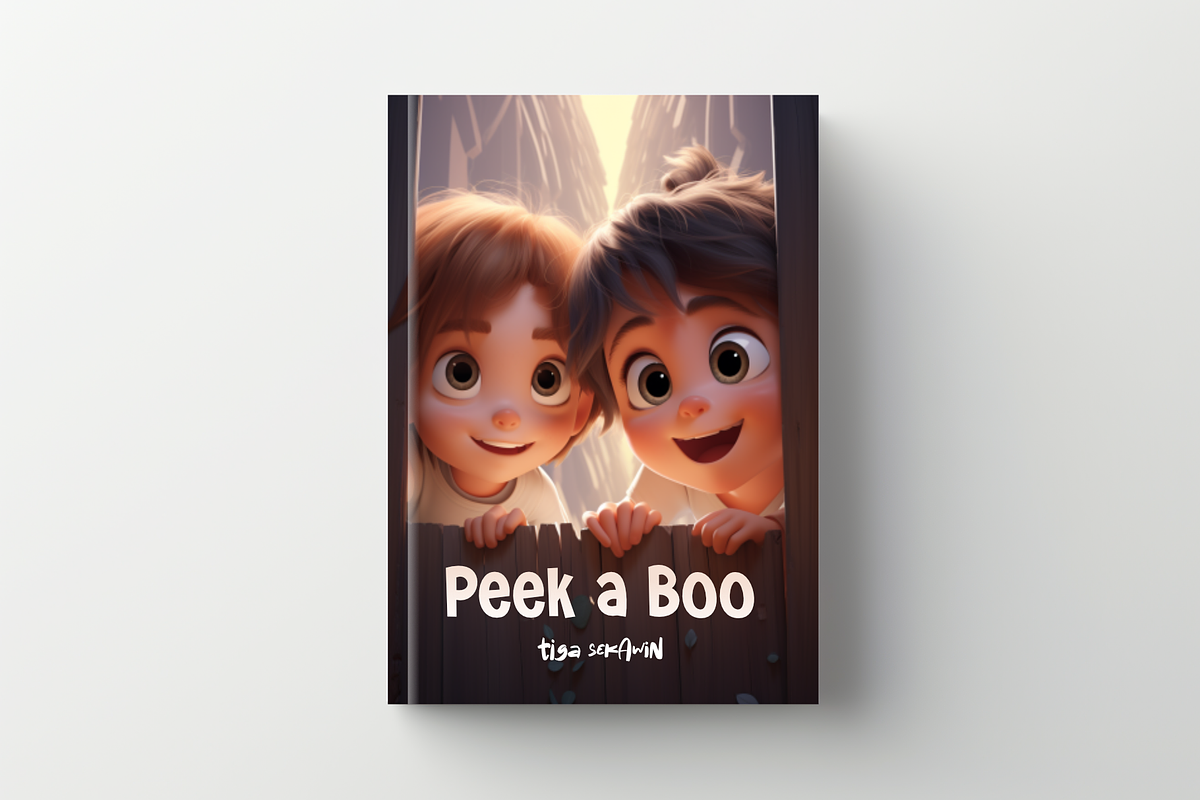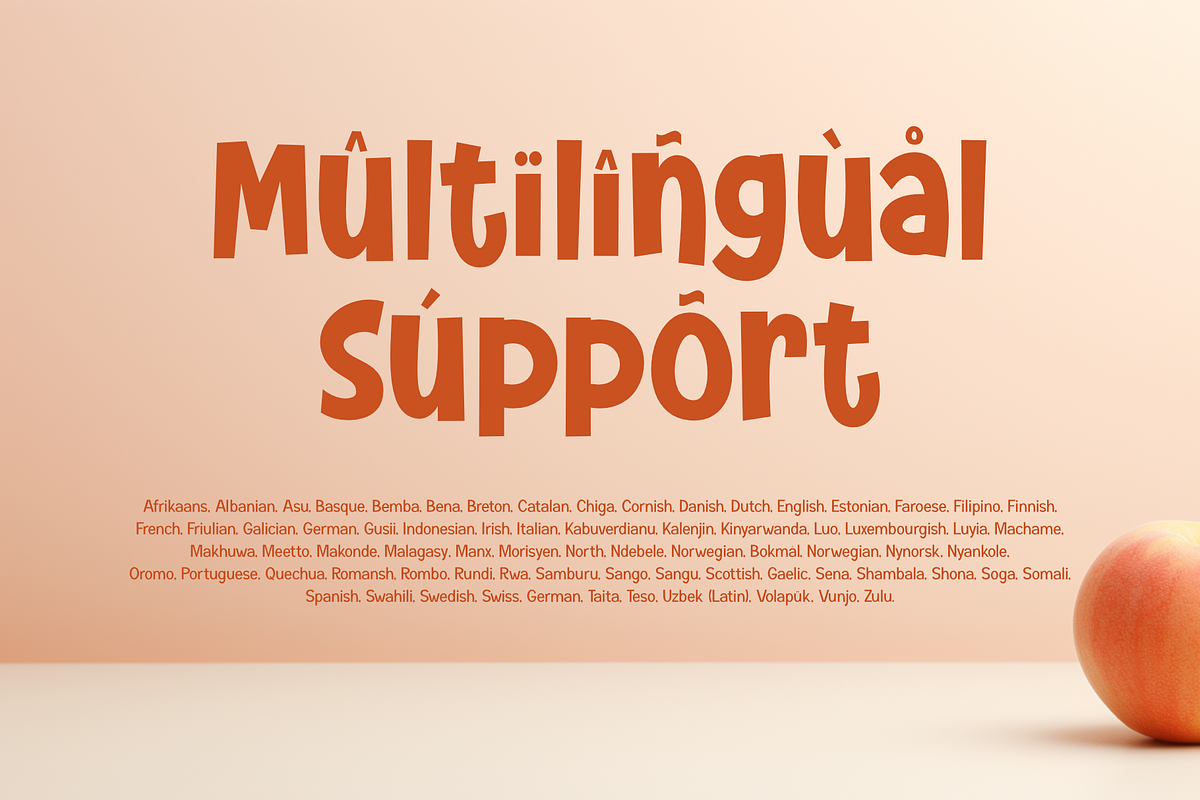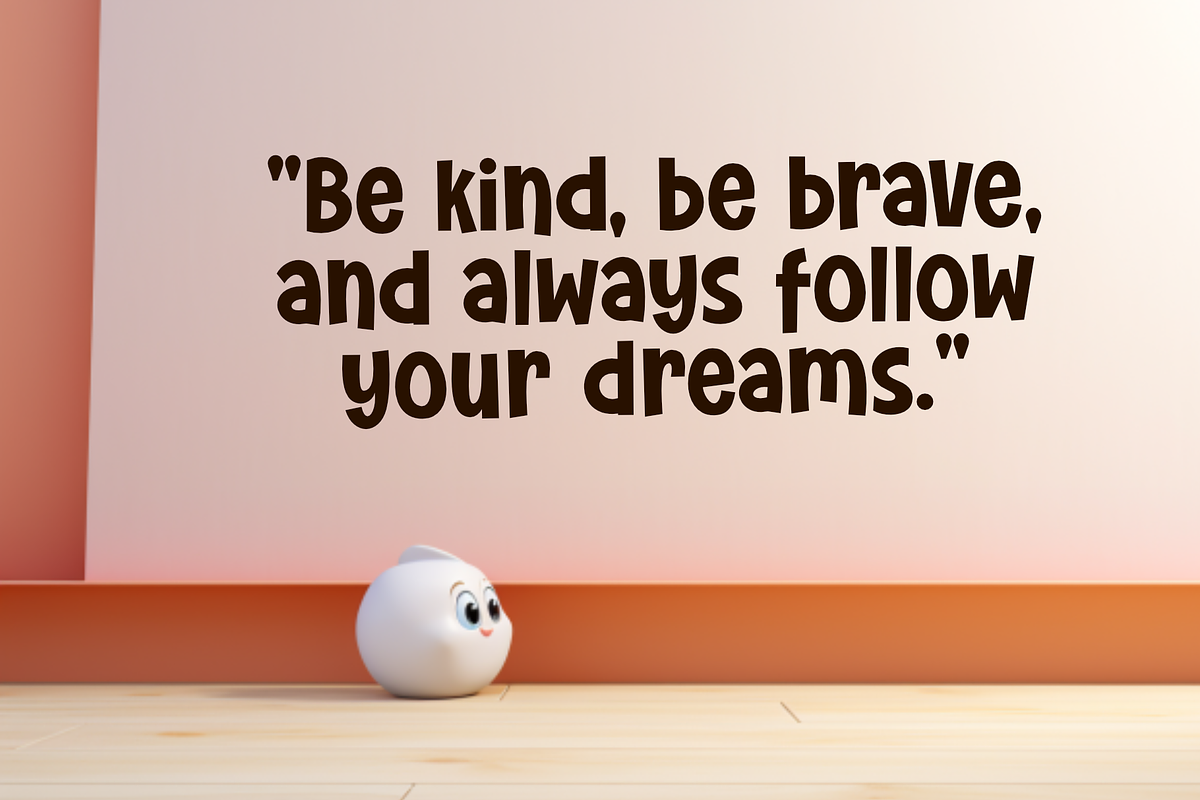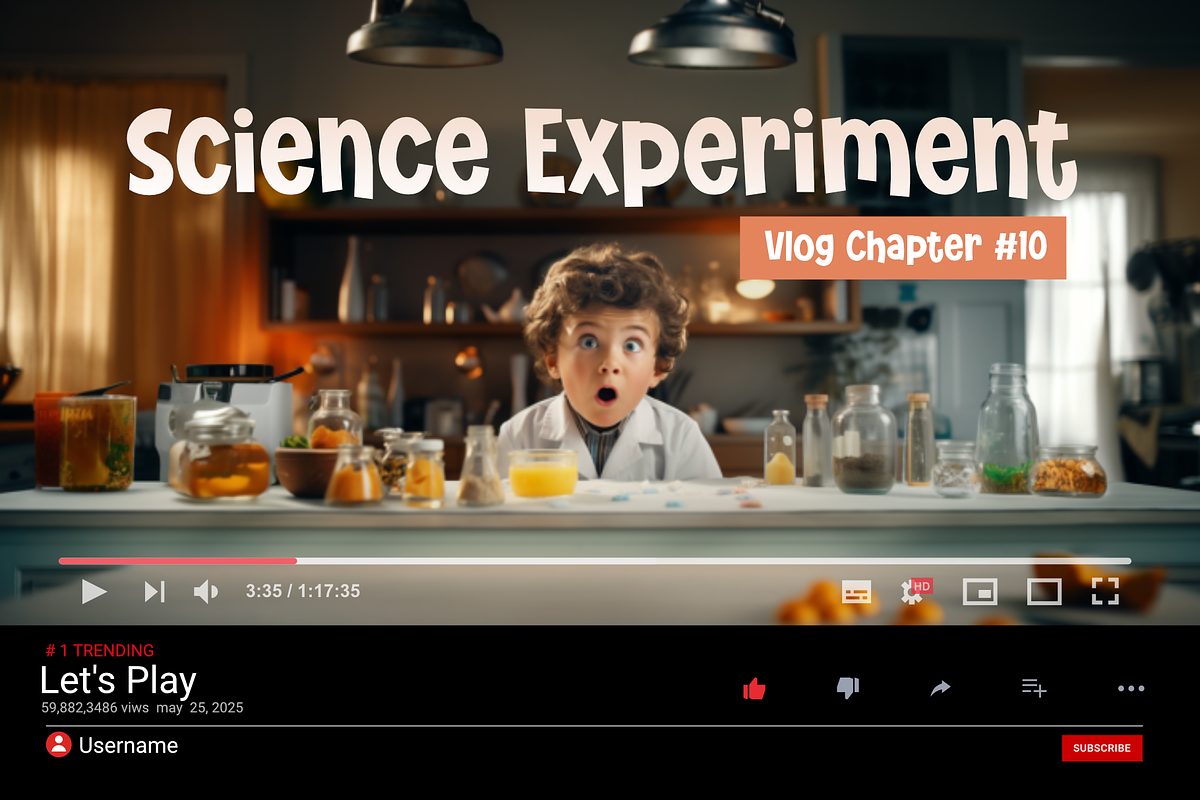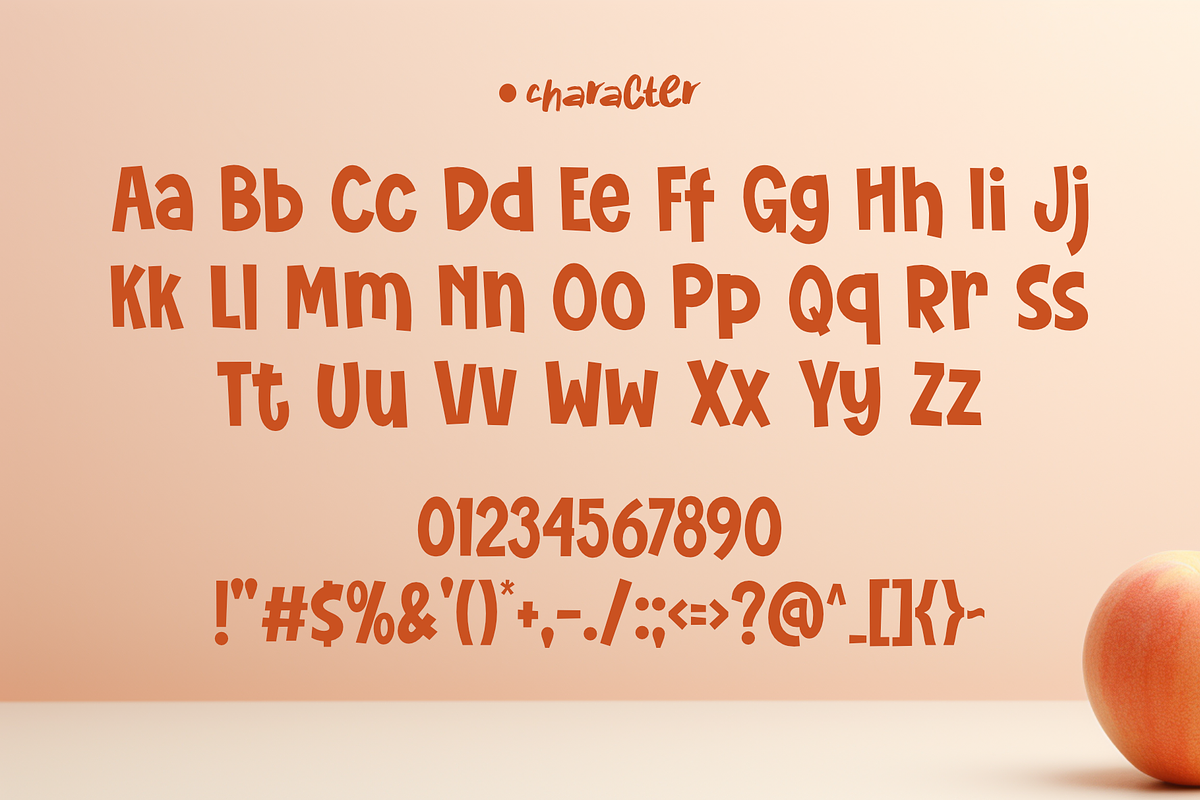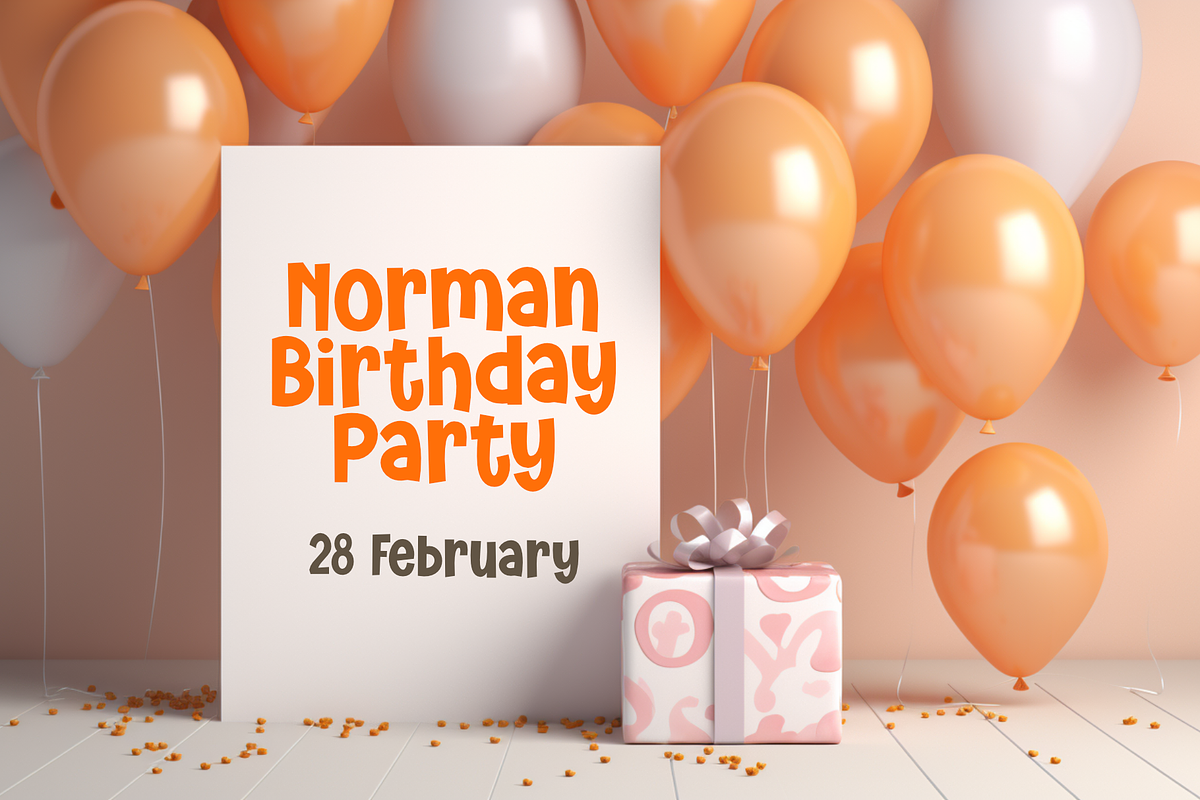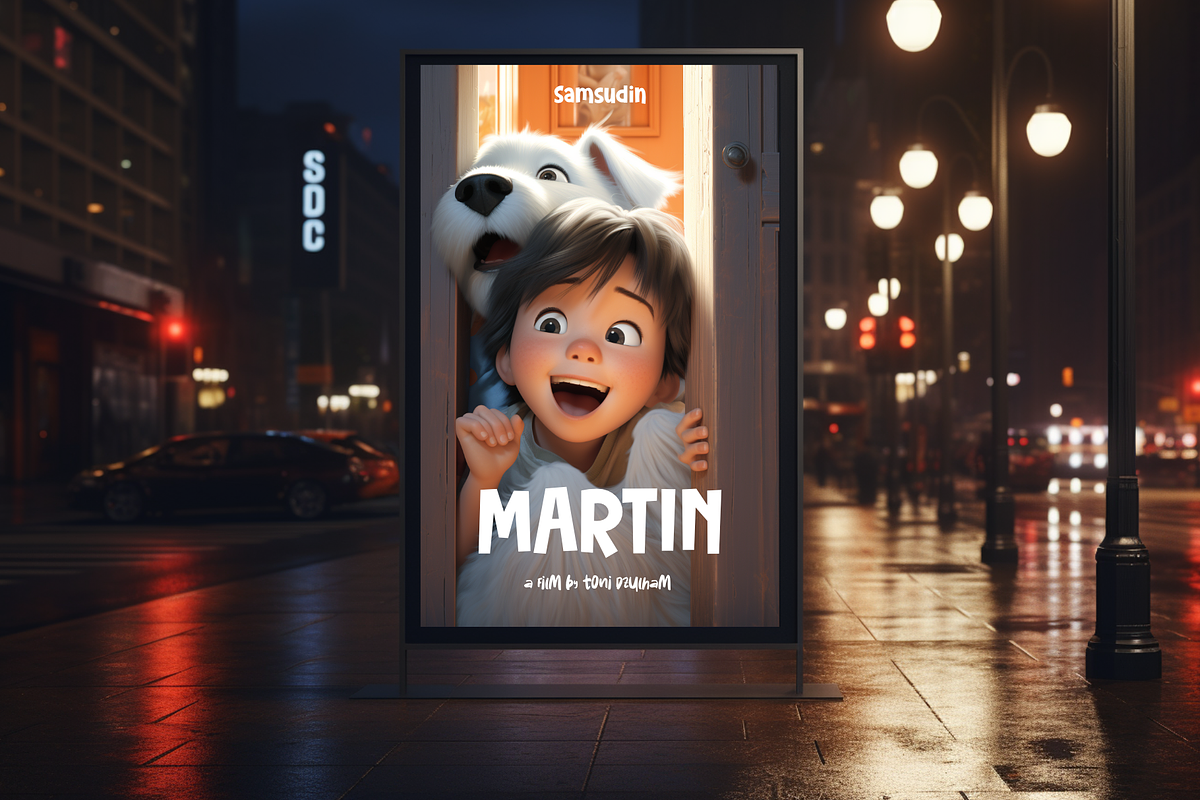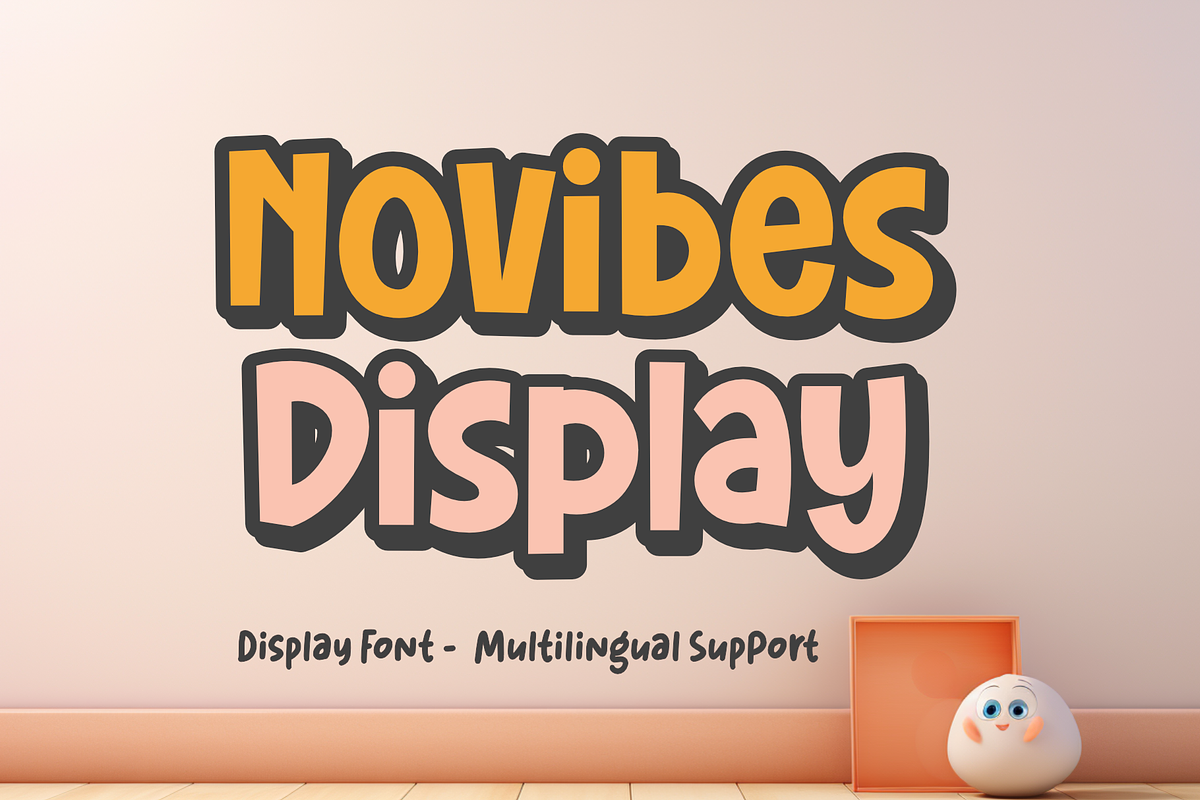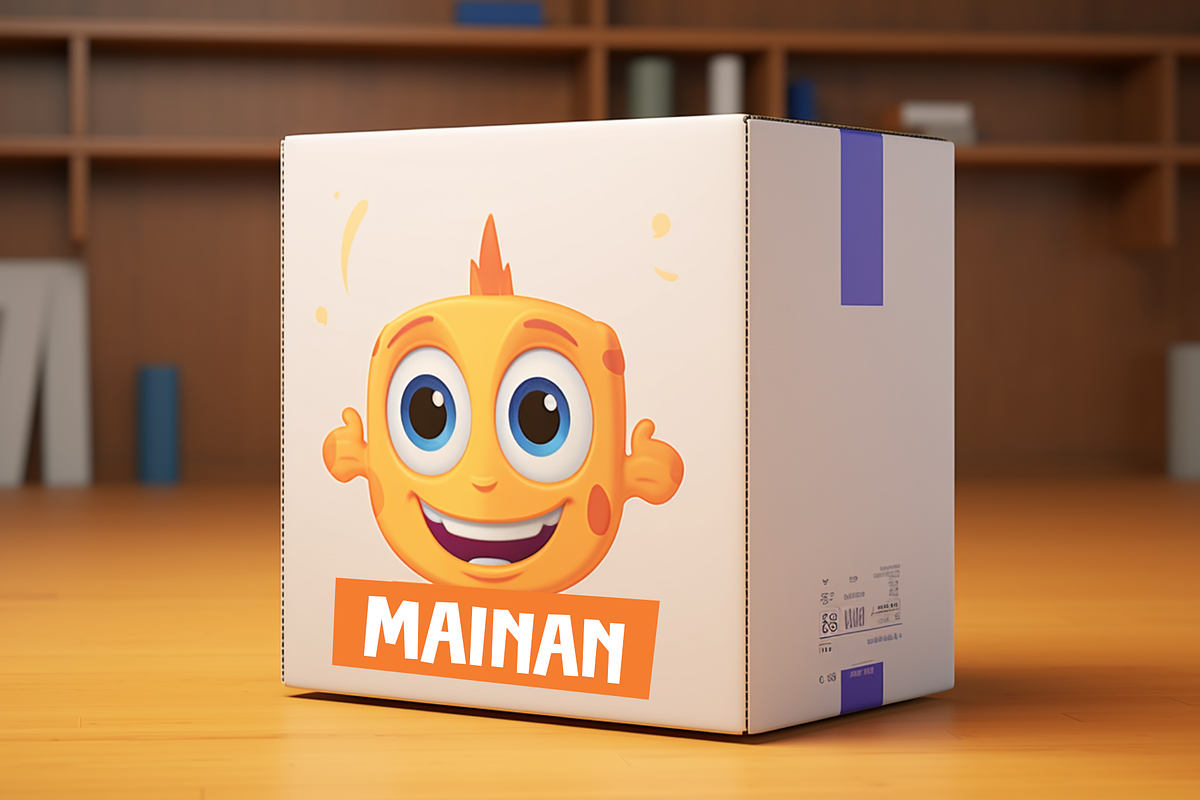
Novibes Display
Novibes Display is a display font designed to convey a fresh, energetic, and modern impression. With clean and bold lines, this font highlights striking and attention-grabbing elements. Each letter has a unique and creative shape, with captivating and expressive details.
Novibes Display is suitable for designs targeting dynamic and young audiences. It can bring a touch of cheerfulness and excitement to designs, making it an ideal choice for posters, advertisements, brochures, games, and other visual materials that aim to capture attention with a distinct style.
The strengths of Novibes Display lie in its ability to deliver messages with a strong and bold style while still exuding warmth and joy. With its good adaptability, this font can be used in various design contexts, ranging from art-related projects to entertainment and modern technology.
With Novibes Display, your designs will come to life, infused with energy and full of character. This font will help create visually stunning and impressive visuals for your target audience.